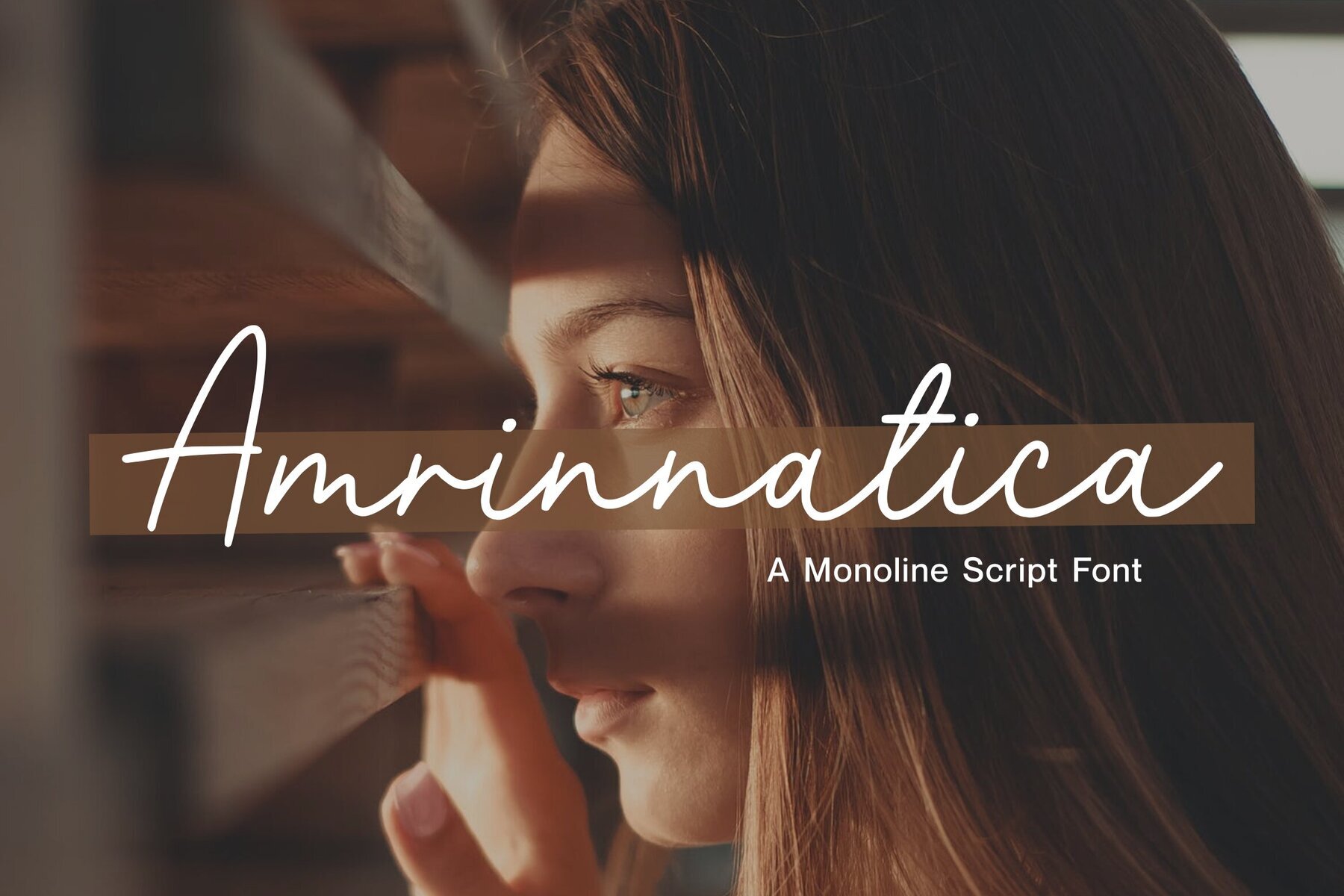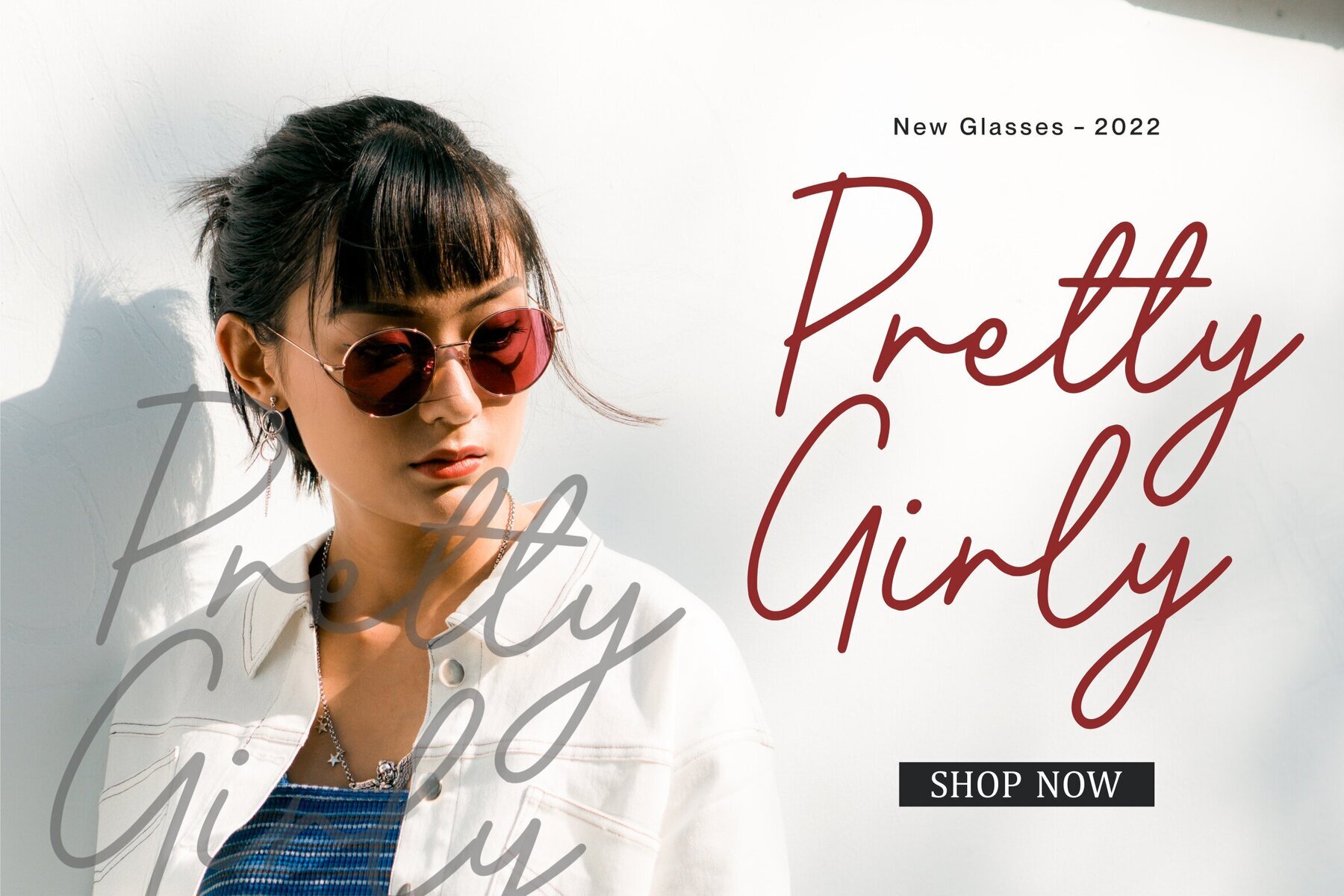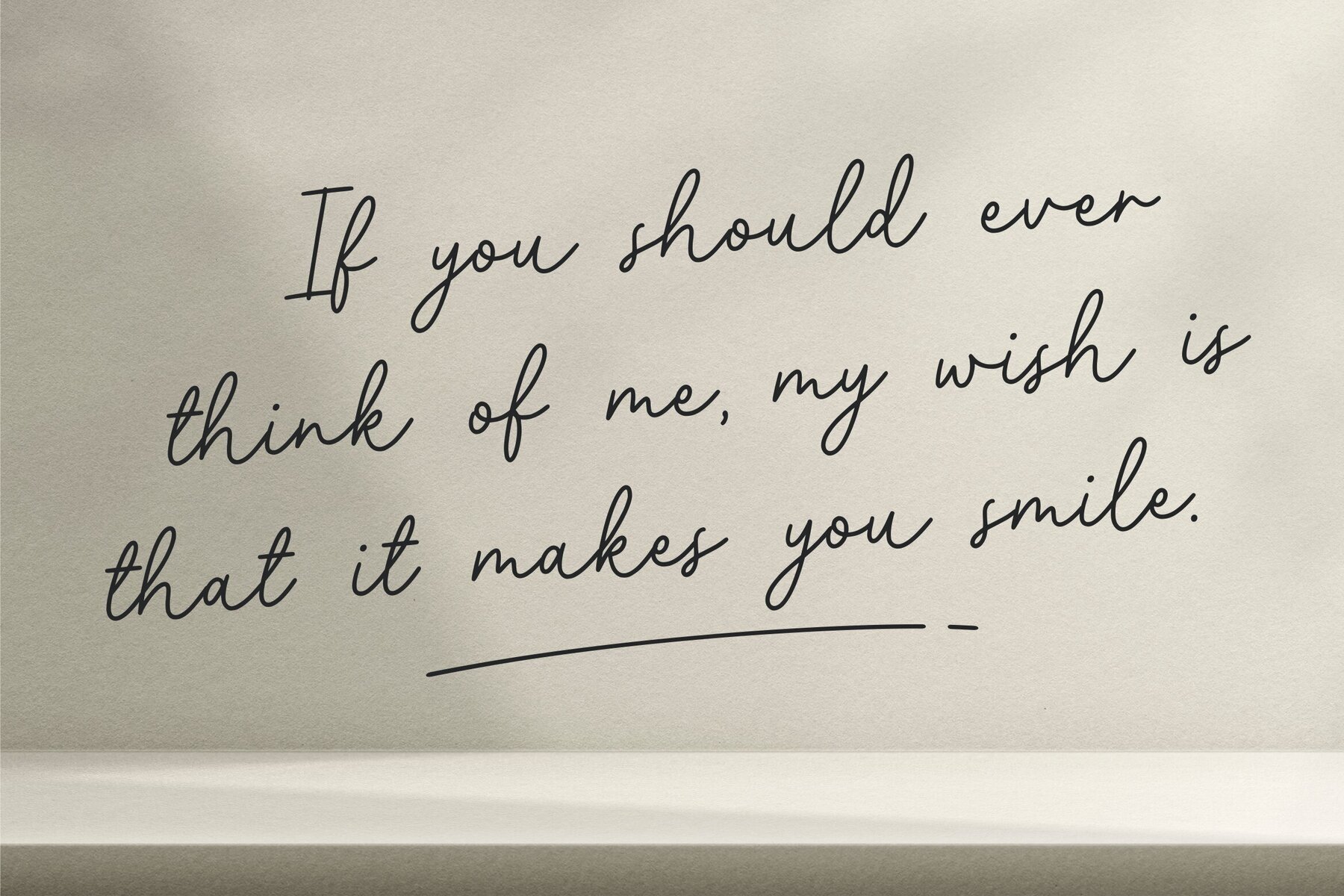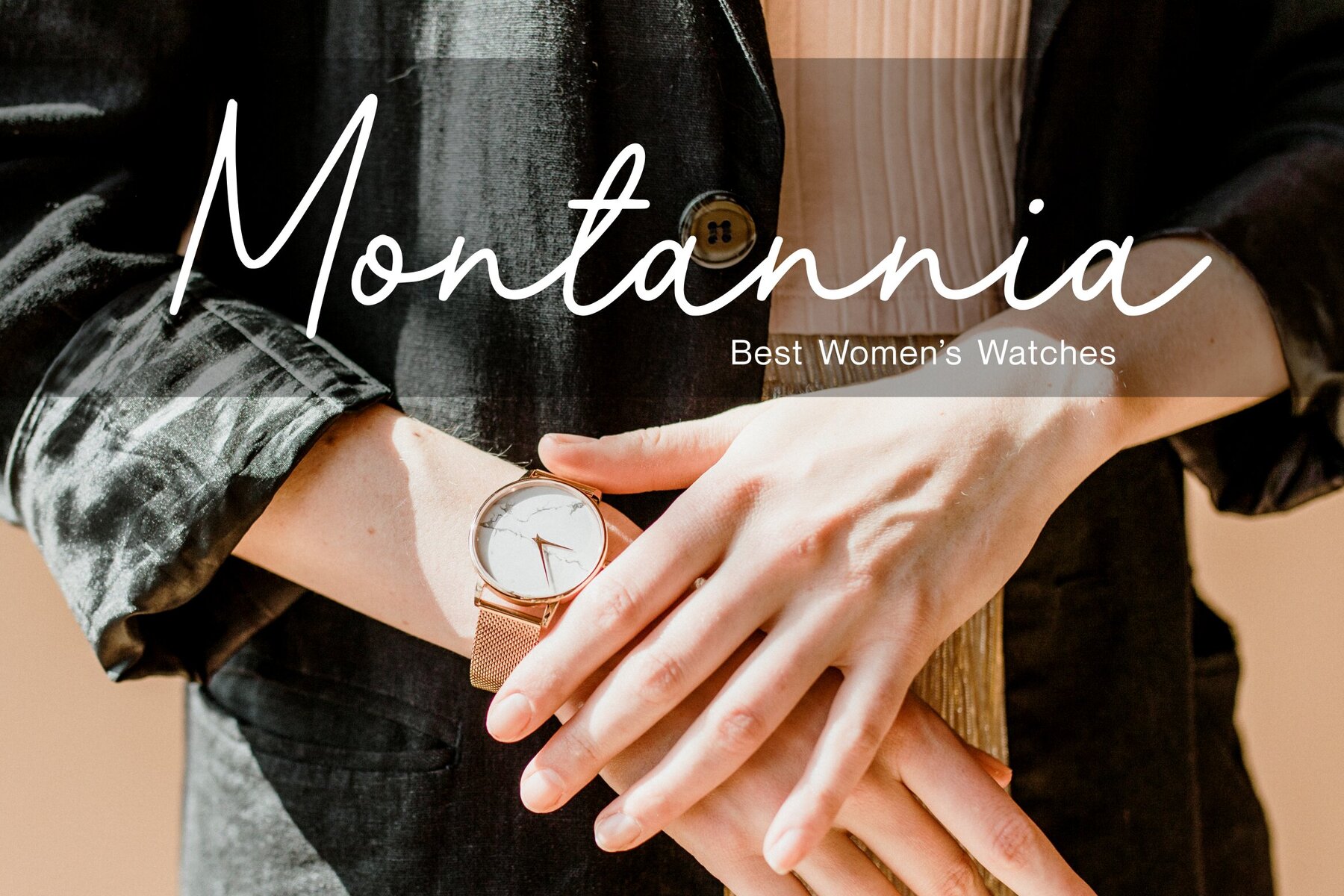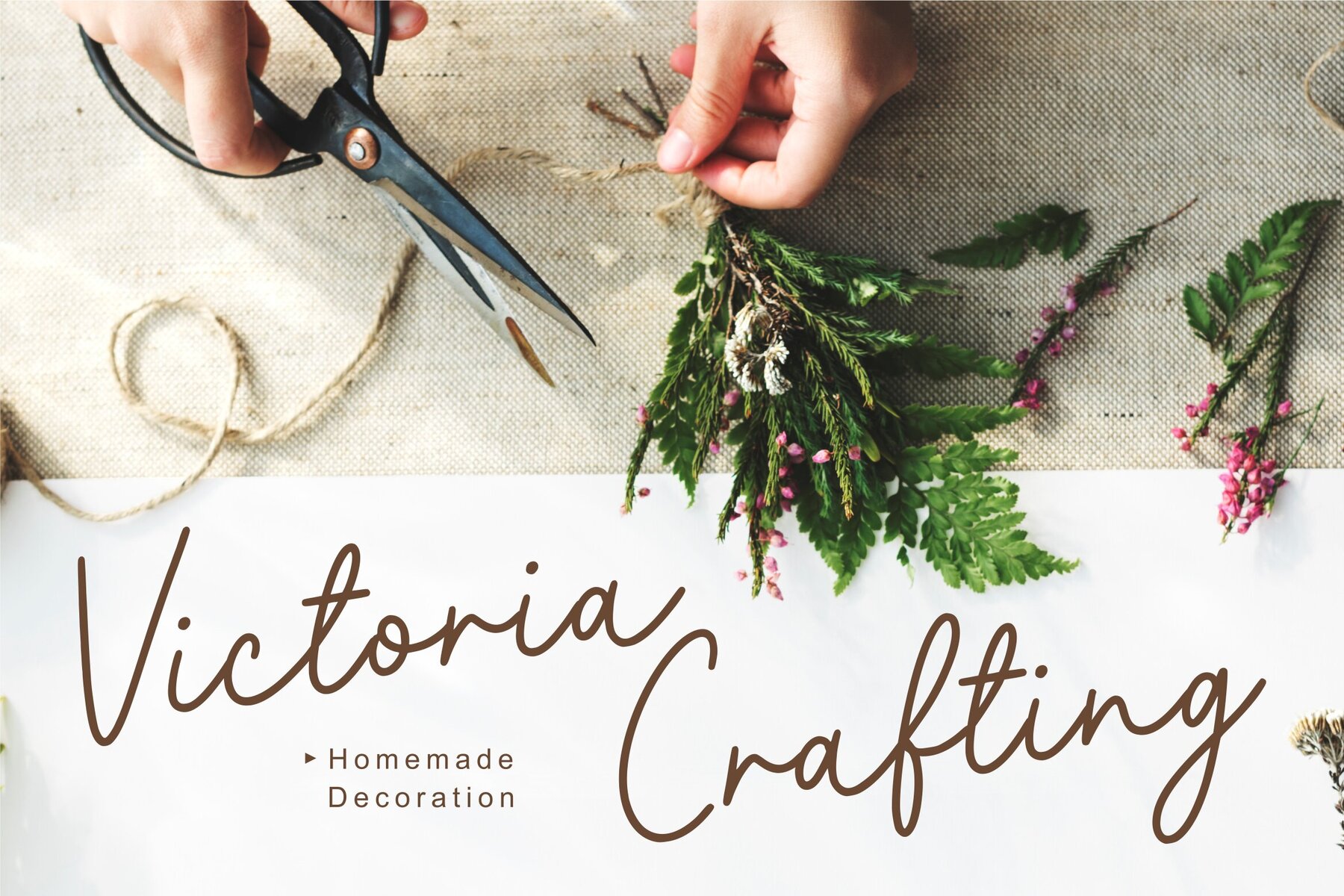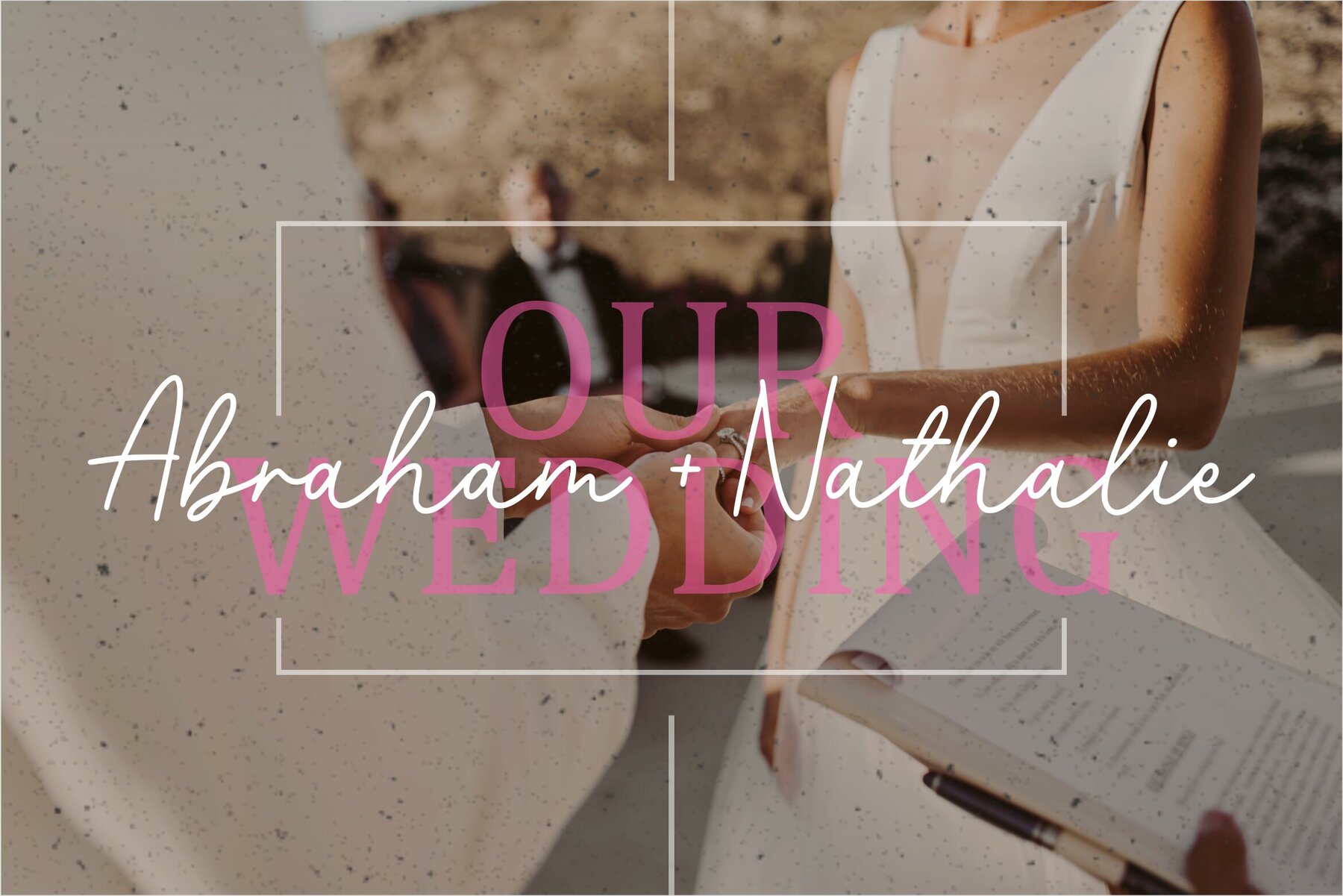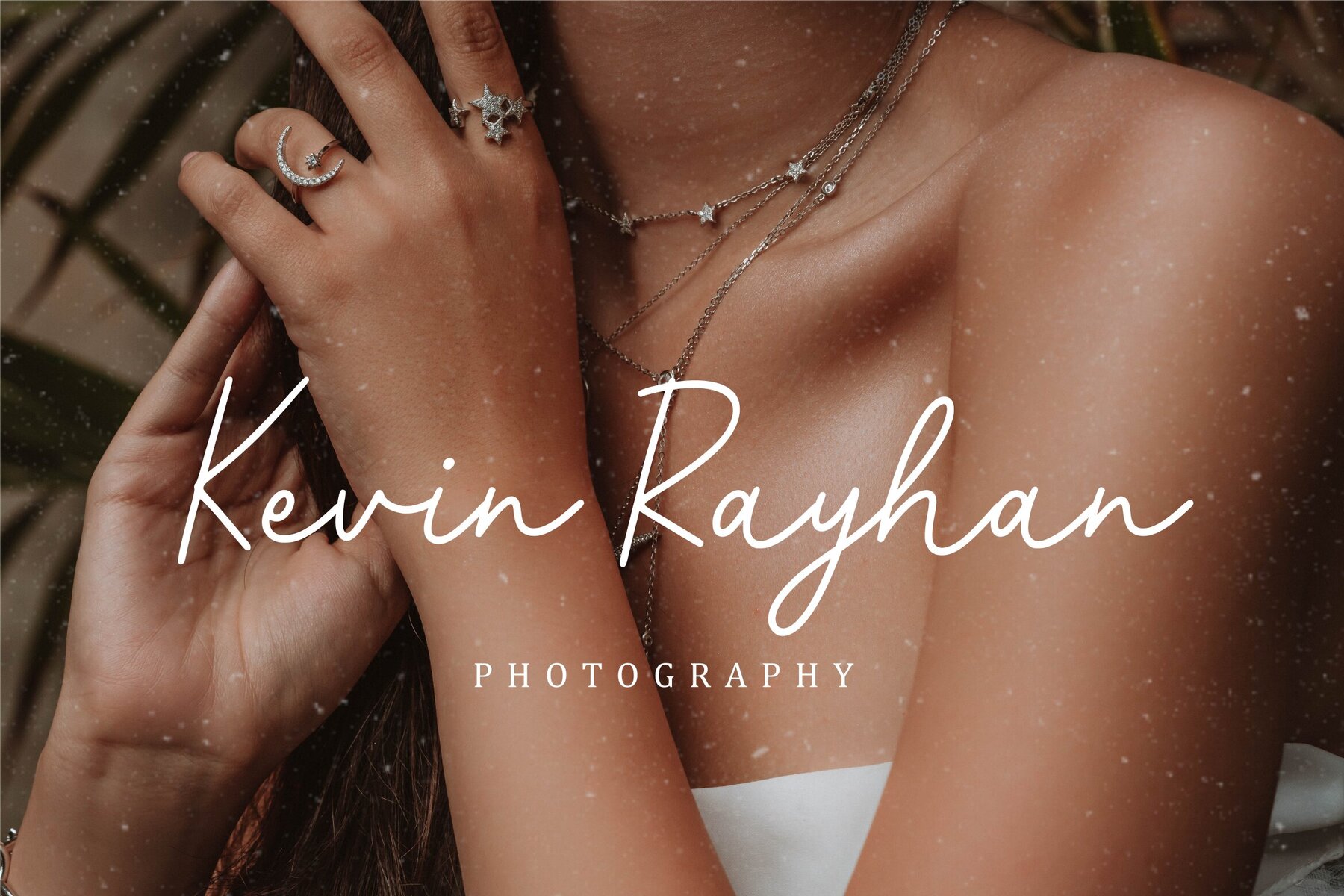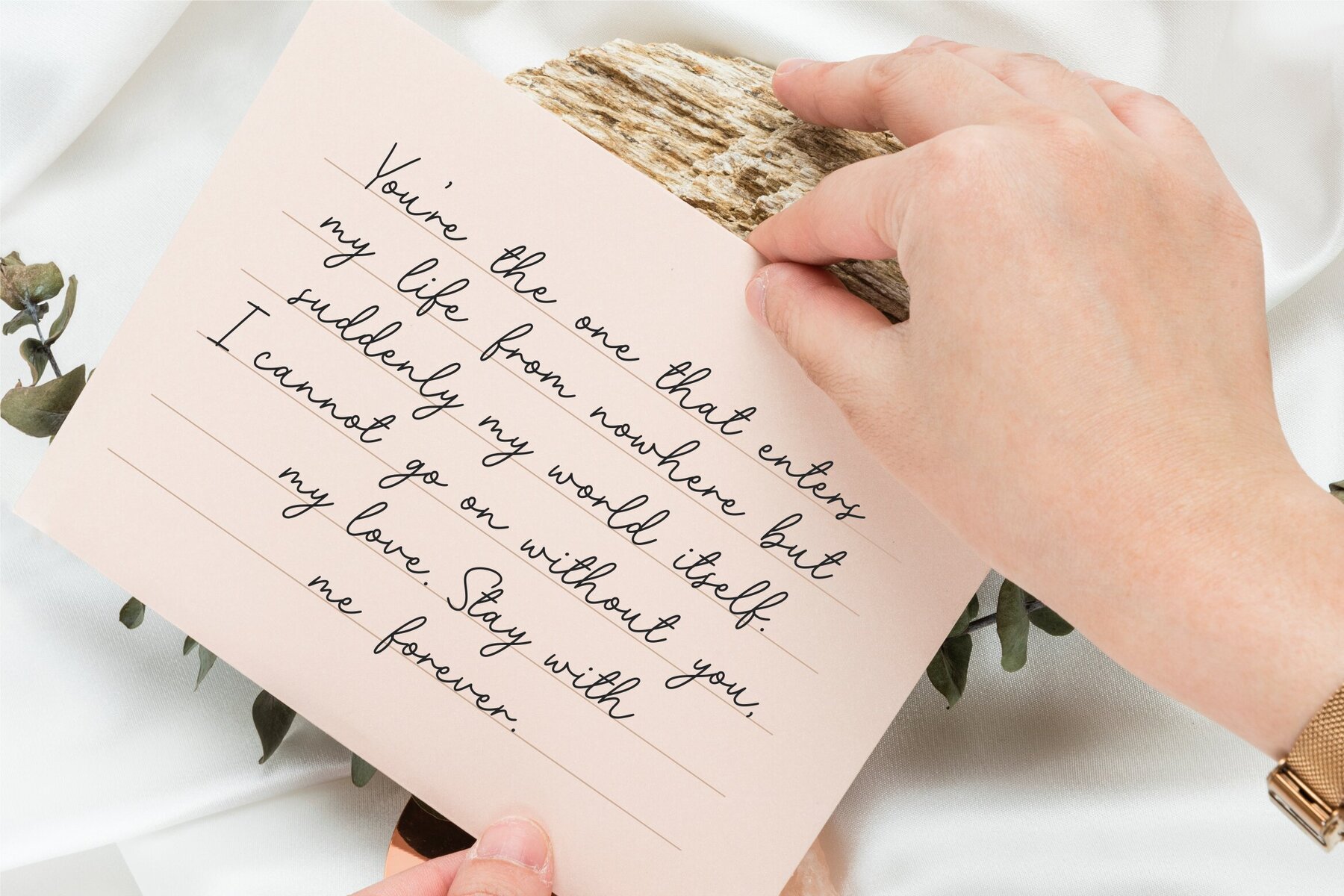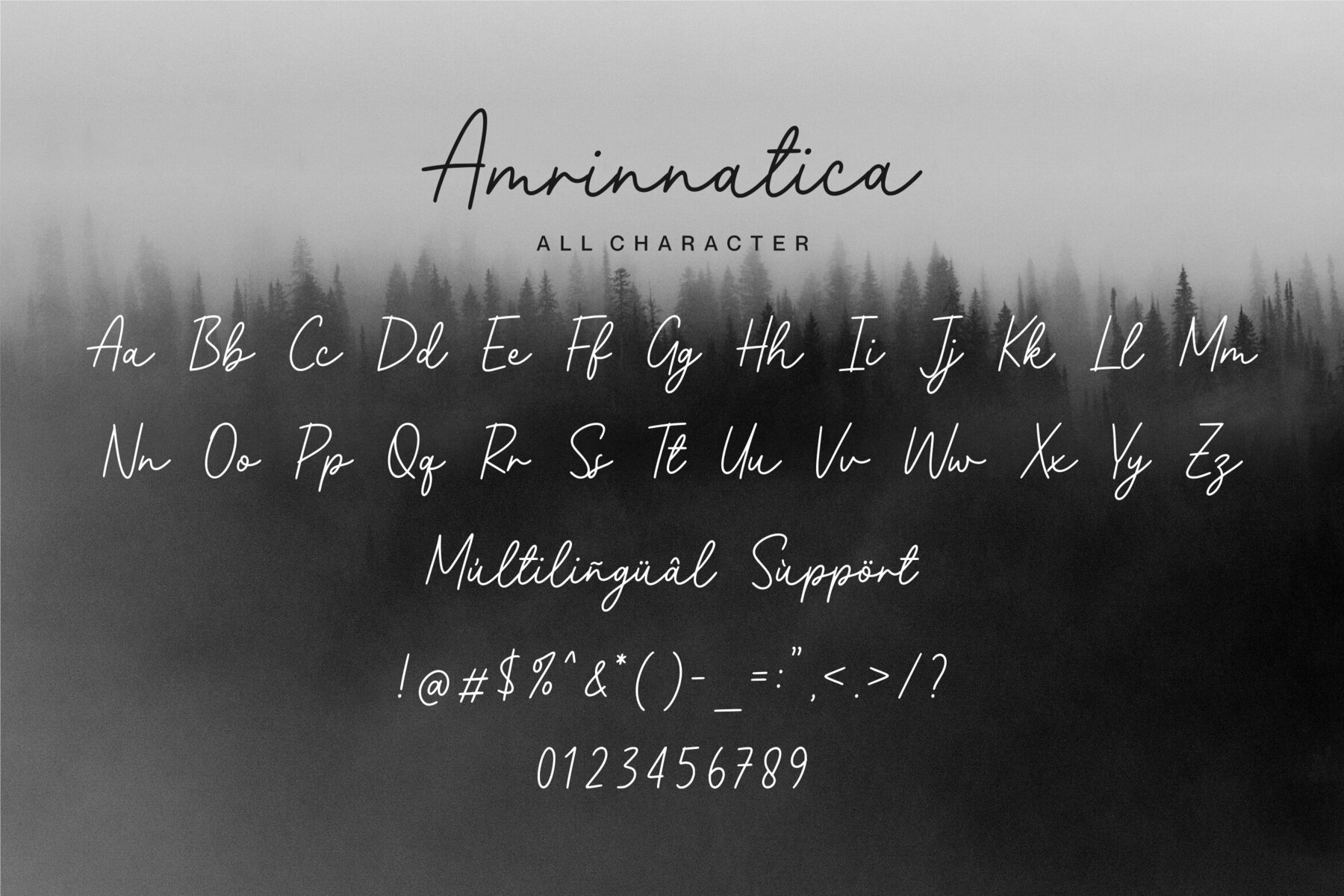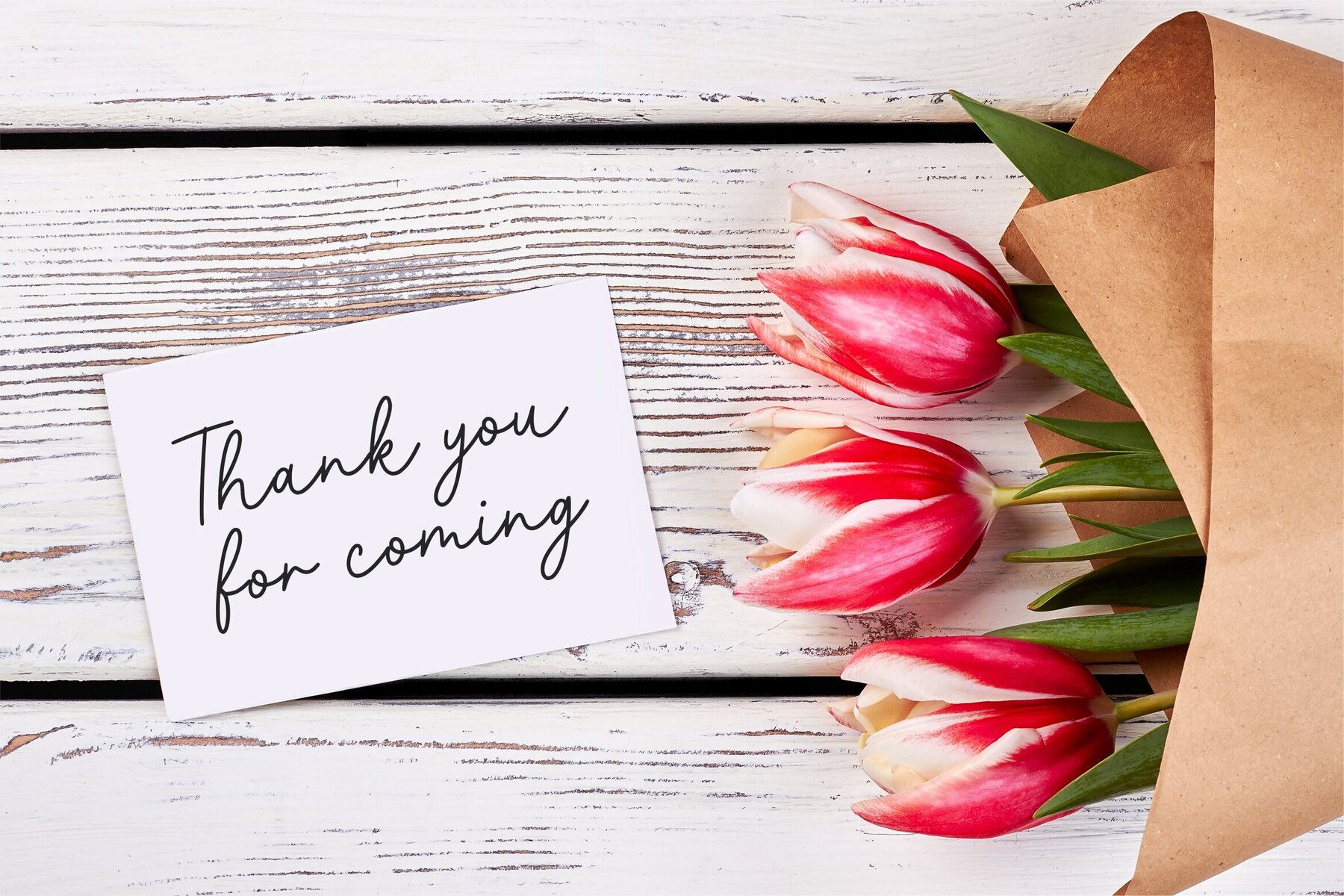
Amrinnatica Font
Amrinnatica Regular
Discover the refined beauty of Amrinnatica, a font that seamlessly integrates into a wide array of design applications. Whether it’s gracing a magazine cover or adding a sophisticated touch to product packaging, Amrinnatica adapts effortlessly to your creative needs. Its aesthetic versatility makes it a go-to choice for modern branding projects and unique social media content.Amrinnatica: Elegance in Typography for Versatile Design
Perfect Applications
Amrinnatica continues to inspire with its sophisticated and adaptable charm, perfect for the discerning designer's toolkit.